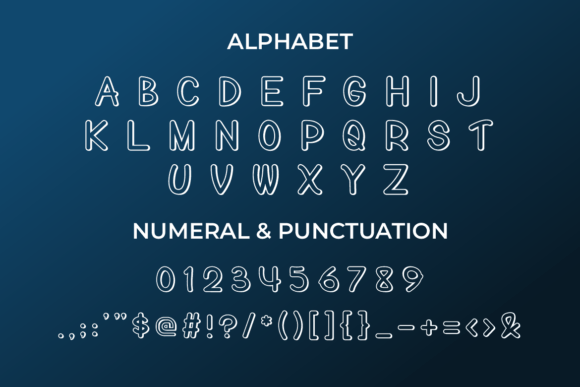
The Gluddwep Font: A Fun and Quirky Display Font for Your Crafty Ideas
I’ll never forget the time I was working on a DIY project for a client’s birthday party invitation. I had the design concept nailed, but something was missing – the perfect font. I scoured the internet, tried out a dozen fonts, but none seemed quite right. That was until I stumbled upon Gluddwep. This fun and quirky display font instantly elevated my design and made it truly special. If you’re a designer, crafter, or creative hobbyist looking for a font that adds a touch of whimsy to your projects, you’re in luck!
An Honest Review of Gluddwep
What I Love About Gluddwep ✨
- Unique and quirky design that’s perfect for crafty projects ✅
- Highly legible, even at larger font sizes 📚
- Extensive character set, including glyphs and stylistic alternates 🎨
- Works well for titles, headings, and short paragraphs 📝
- May not be suitable for body text or long paragraphs due to its display font nature ⚠️
- Limited use of OpenType features in some platforms, such as Microsoft Word 😐
The Backstory of Gluddwep: Designer Inspiration
Gluddwep was created with the intention of bringing a touch of whimsy to crafty projects. The designer, inspired by childhood memories of DIY crafts and playtime, aimed to create a font that would evoke a sense of fun and creativity. With its unique design and extensive character set, Gluddwep is perfect for adding a personal touch to your projects.
| What type of projects is Gluddwep best suited for? | Gluddwep is perfect for crafty projects, such as DIY signs, party invitations, and nursery decor. |
| Does Gluddwep support OpenType features? | Yes, Gluddwep supports OpenType features, including glyphs and stylistic alternates, on platforms that support them. |